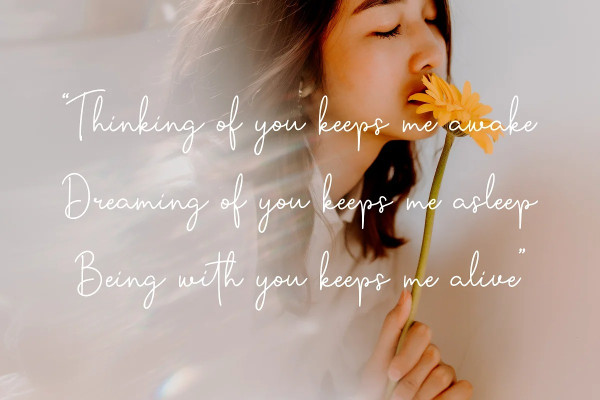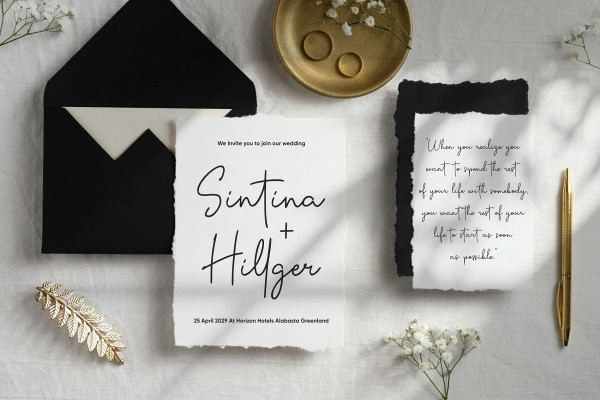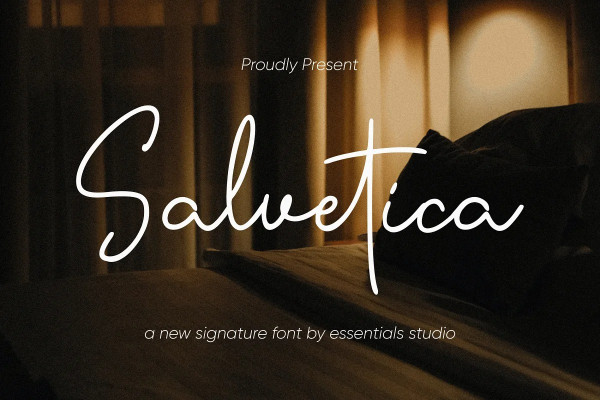
Salvetica Font
Salvetica Font Is a Handwritten Monoline Font with love swash. Salvetica is perfect for product packaging, branding project, megazine, social media, wedding, or just used to express words above the background.